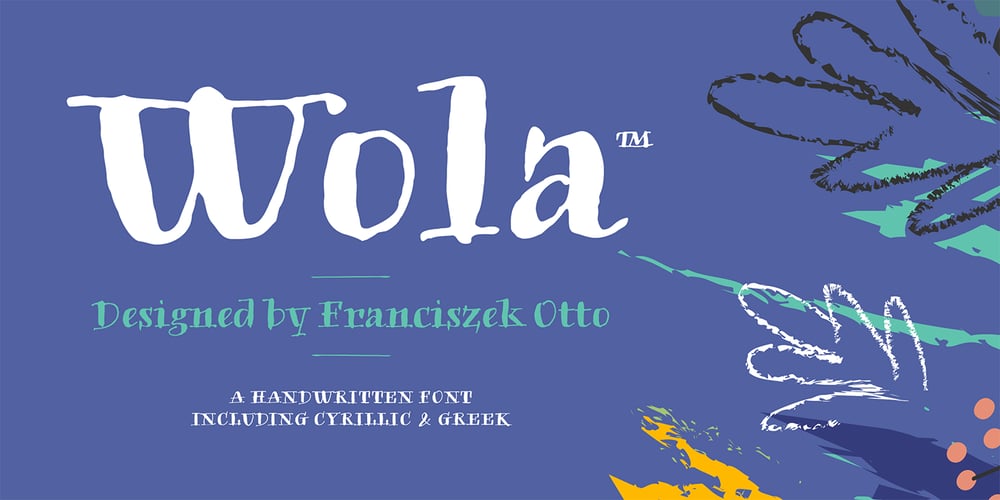
Wola Font Family was designed by Franciszek Otto and published by Monotype. Wola contains 1 styles and family package options. Wola™, by Franciszek Otto, is not for the typographically timid. It creates vibrant digital headings, banners and navigational links, in addition to commanding print headlines and subheads – but it is not shy, reserved or demure. The design blends the stroke weight stress of Bodoni with the urgency of handwritten letterforms, conveying the energy and immediacy of a design that’s bigger than life – and outside the fence. OpenType® Pro fonts of Wola provide for the automatic insertion of ligatures and alternate characters. These are in addition to a character set supporting most Central European and many Eastern European languages, including Cyrillic and Greek. All this makes Wola a comfortable – if boisterous – world traveler.